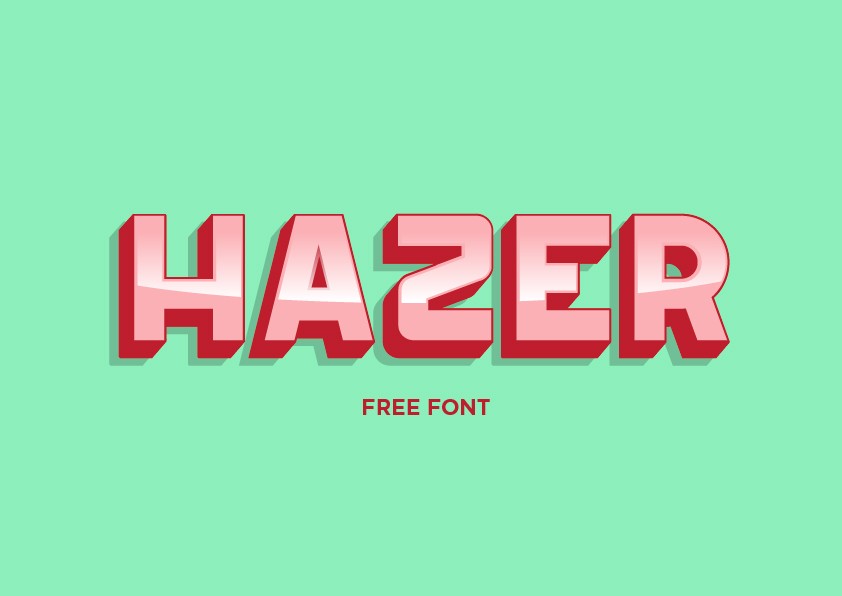
Hazer Alt Font
Hazer Alt Font is a premium font often used in a popular TV sitcom. It is considered one of the best fonts available, with a total of eight font styles and 192 variations to choose from.
For the number one time, it has end up launched great within the much like gidole font. But in some time, after seeking out the majority reaction the sitcom organization has determined to loose upon global.